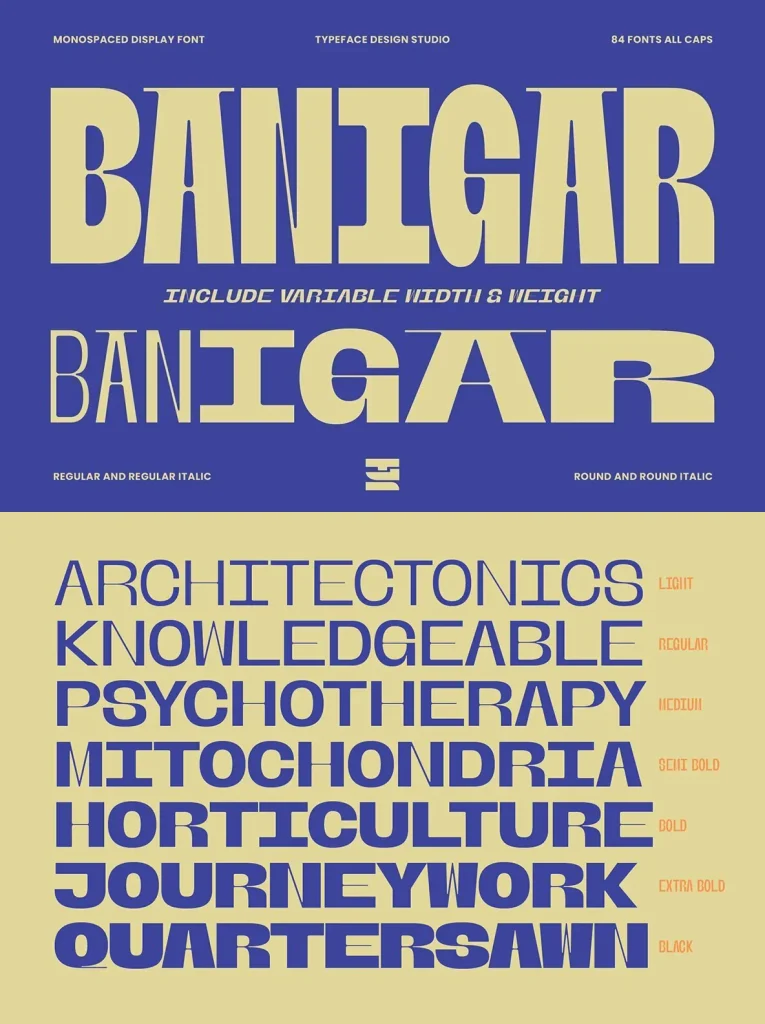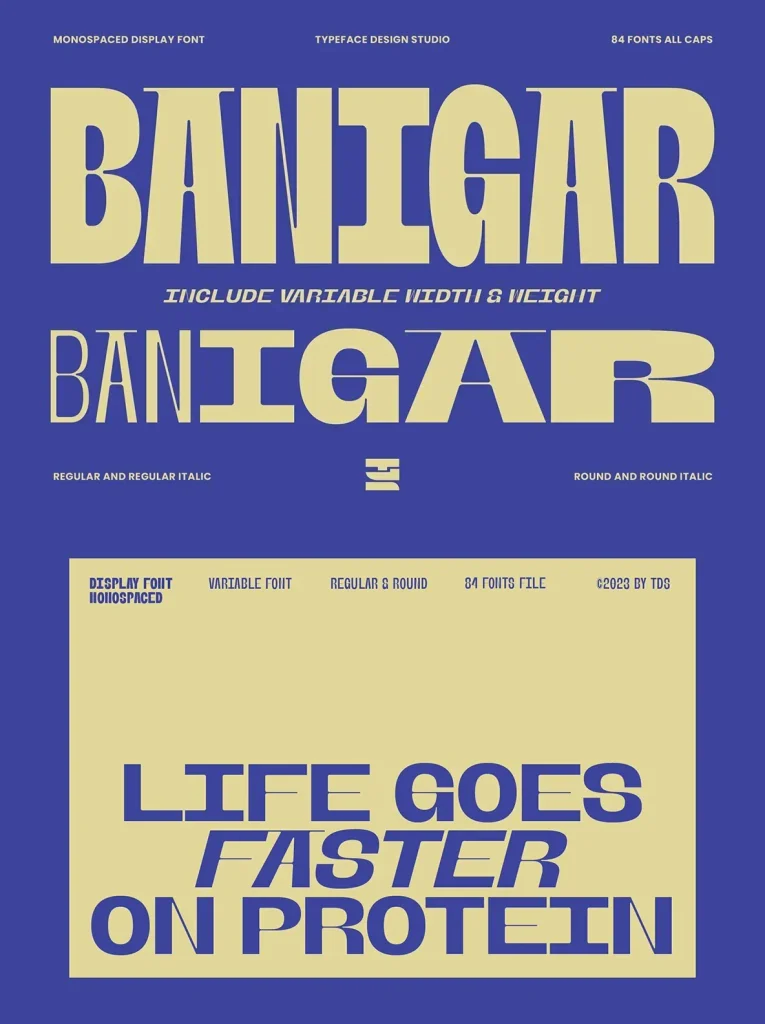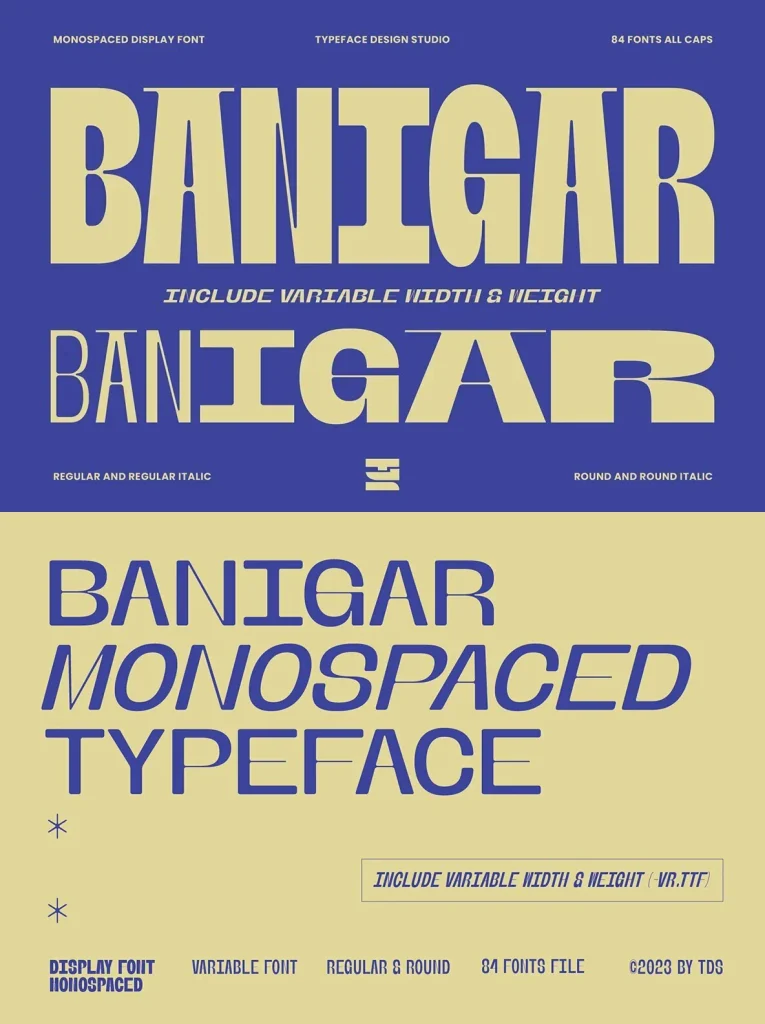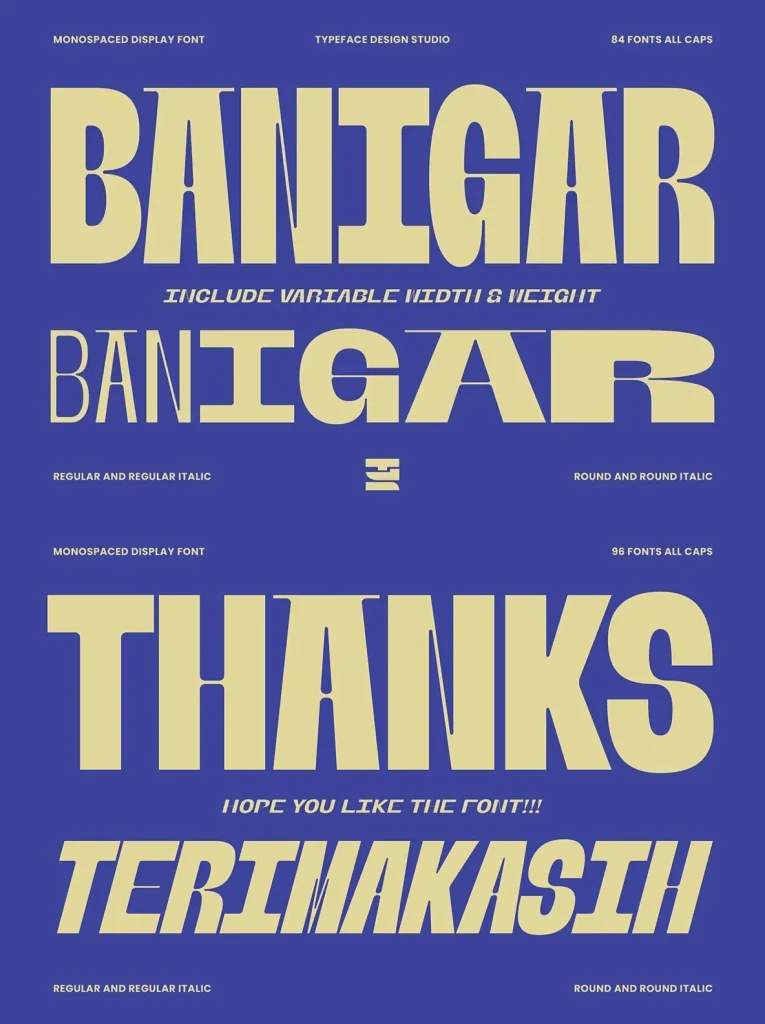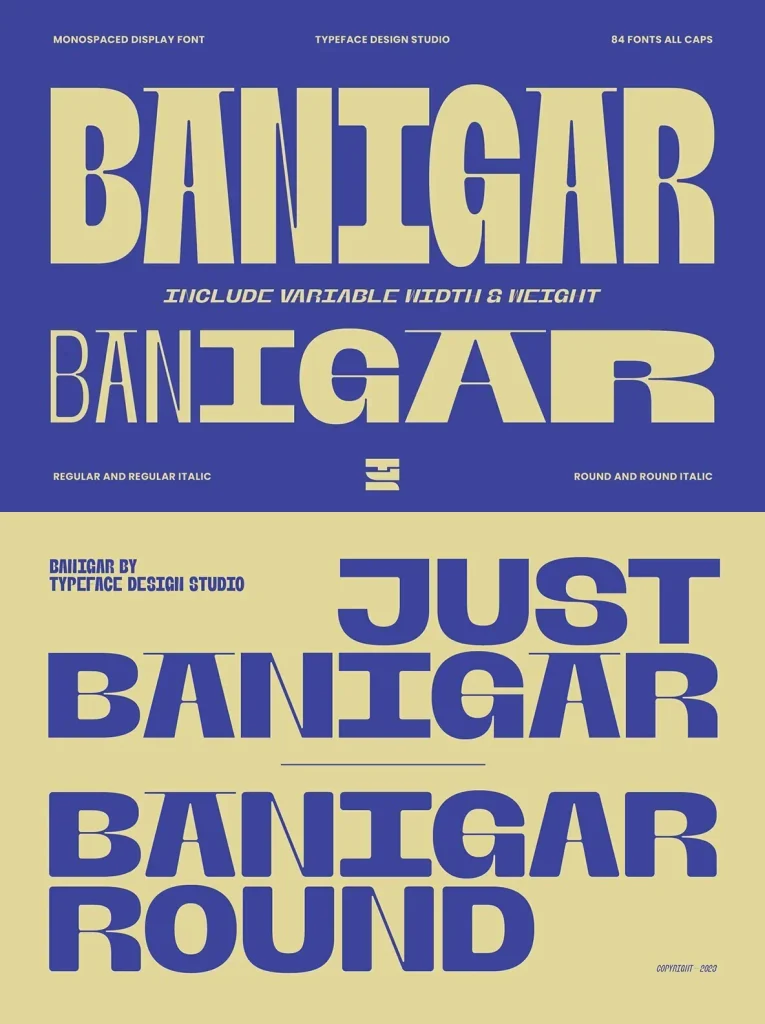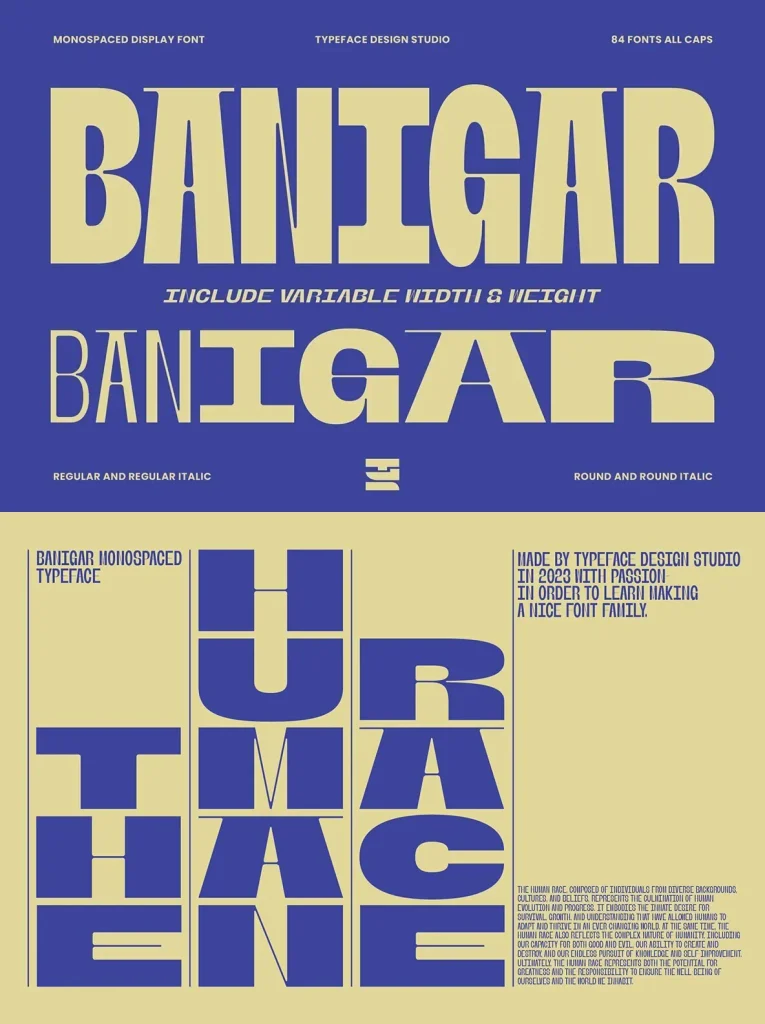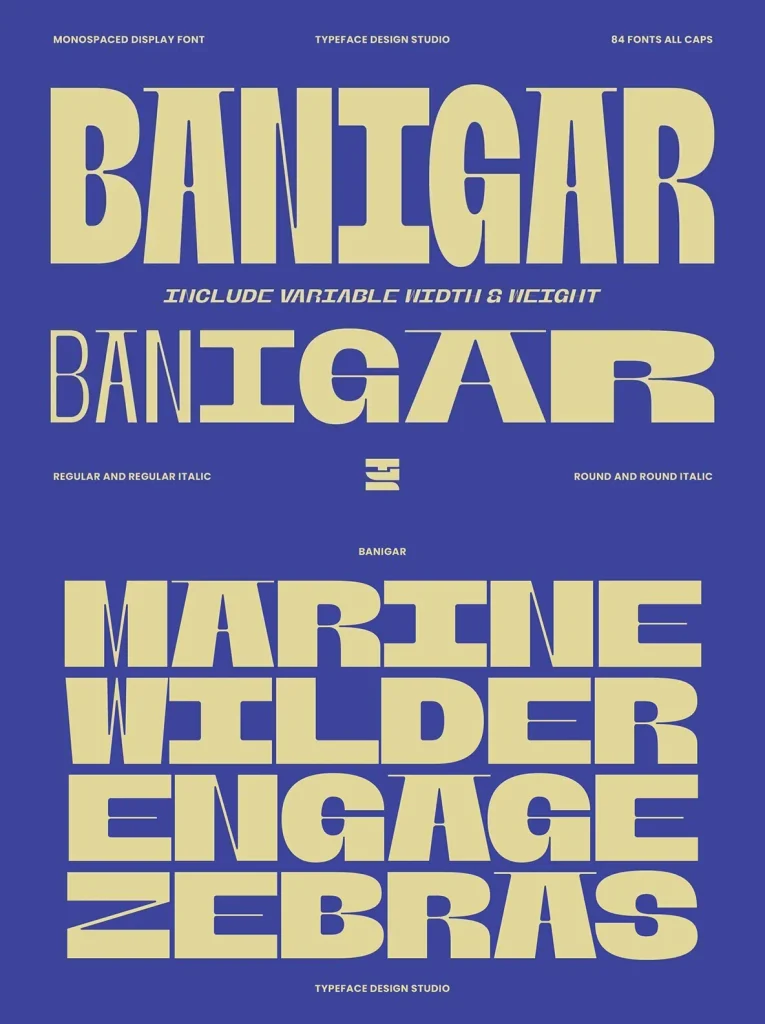
Banigar: Retro Minimal Sans with Flexible Style
Banigar is a sans-serif font, loaded with 84 font styles of flaxable style and minimalist precision. Designed for clarity and impact, its clean geometric lines and rhythmic balance bring a timeless quality to contemporary work. Banigar stands out without shouting—ideal for designers who value quiet confidence in their typography.
Its variable design and multi-style range make it highly adaptable across branding, publishing, and digital interfaces.
Built for Versatility
Banigar’s strength lies in its scope. Available as a variable font and in multiple width and weight styles, it allows seamless experimentation with tone—from structured headlines to more relaxed, nostalgic applications.
Retro Meets Modern:
Balanced forms with a subtle nod to mid-century sans-serifs.
Minimalist Geometry:
Clean shapes and uniform widths offer clarity and calm.
Multiple Style Sets: